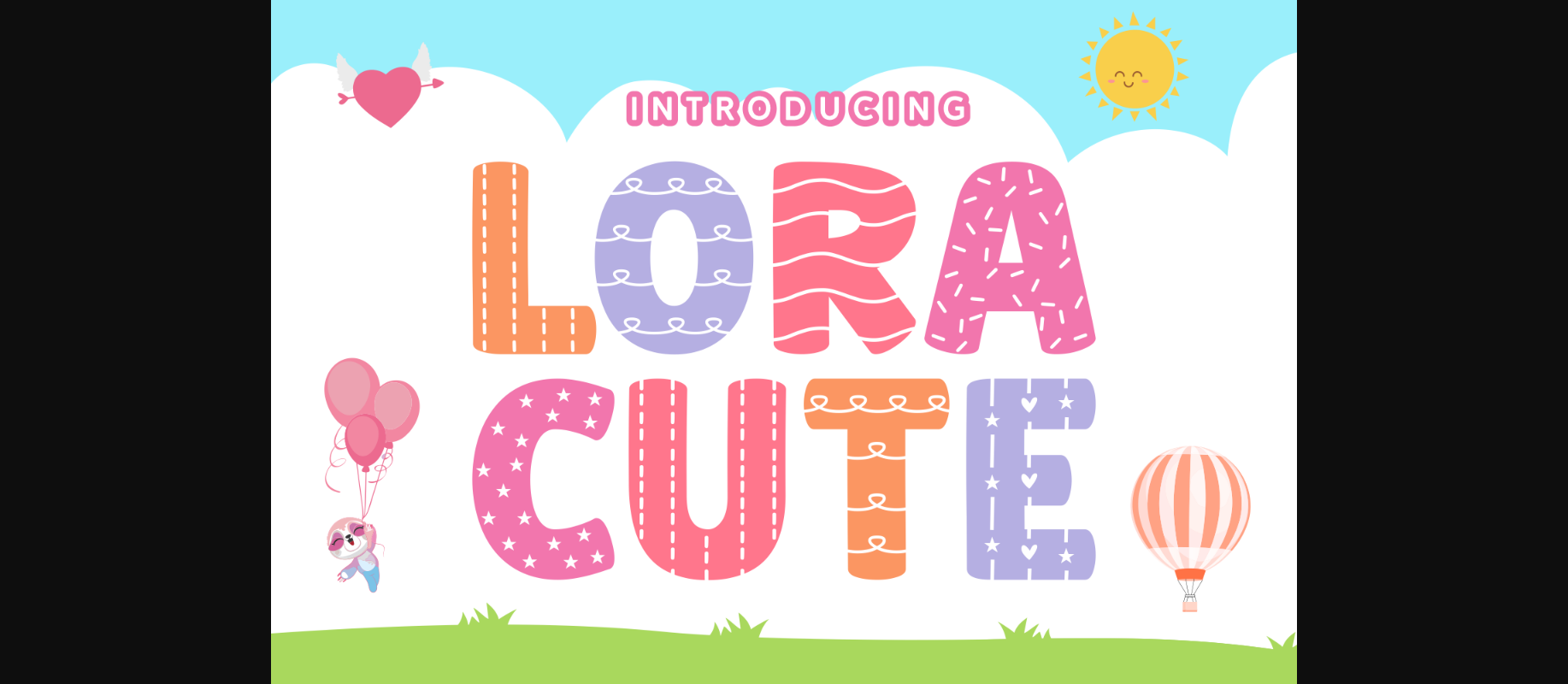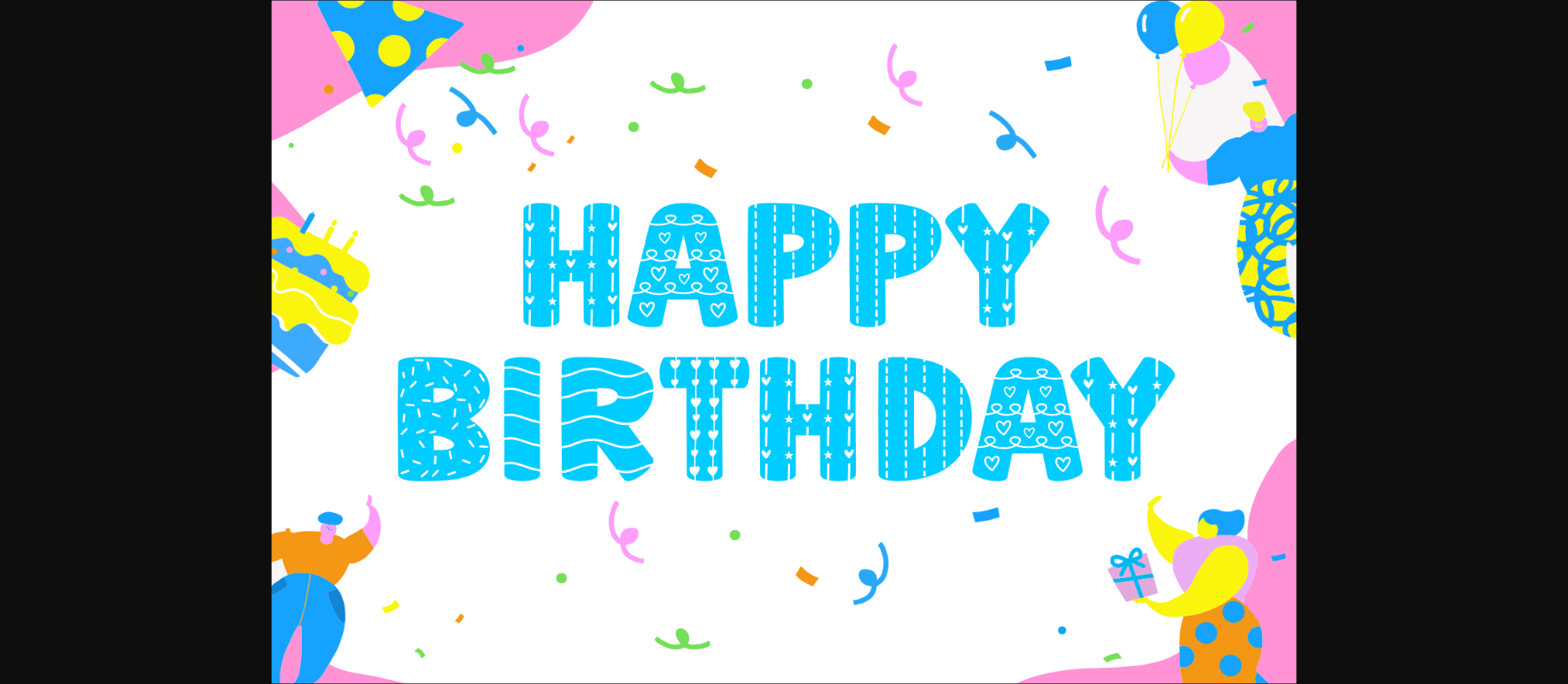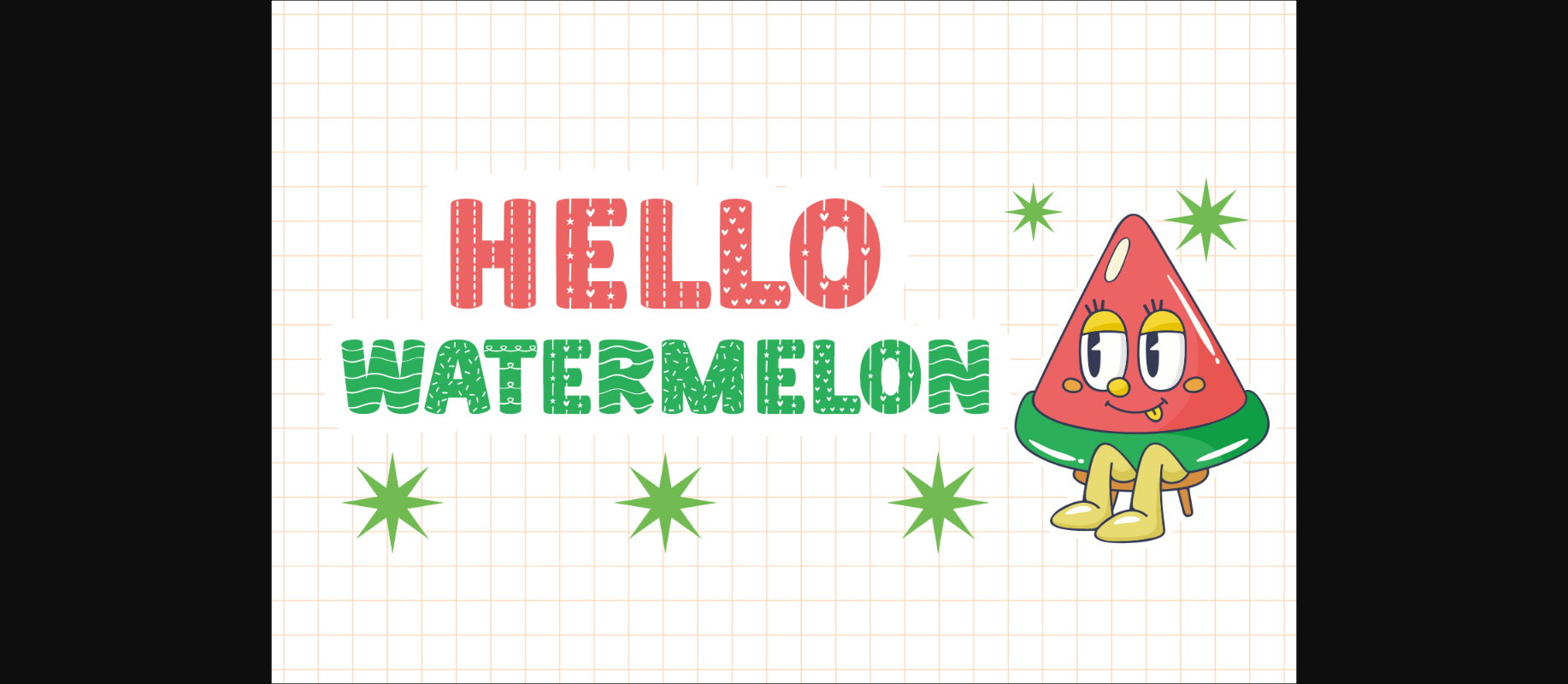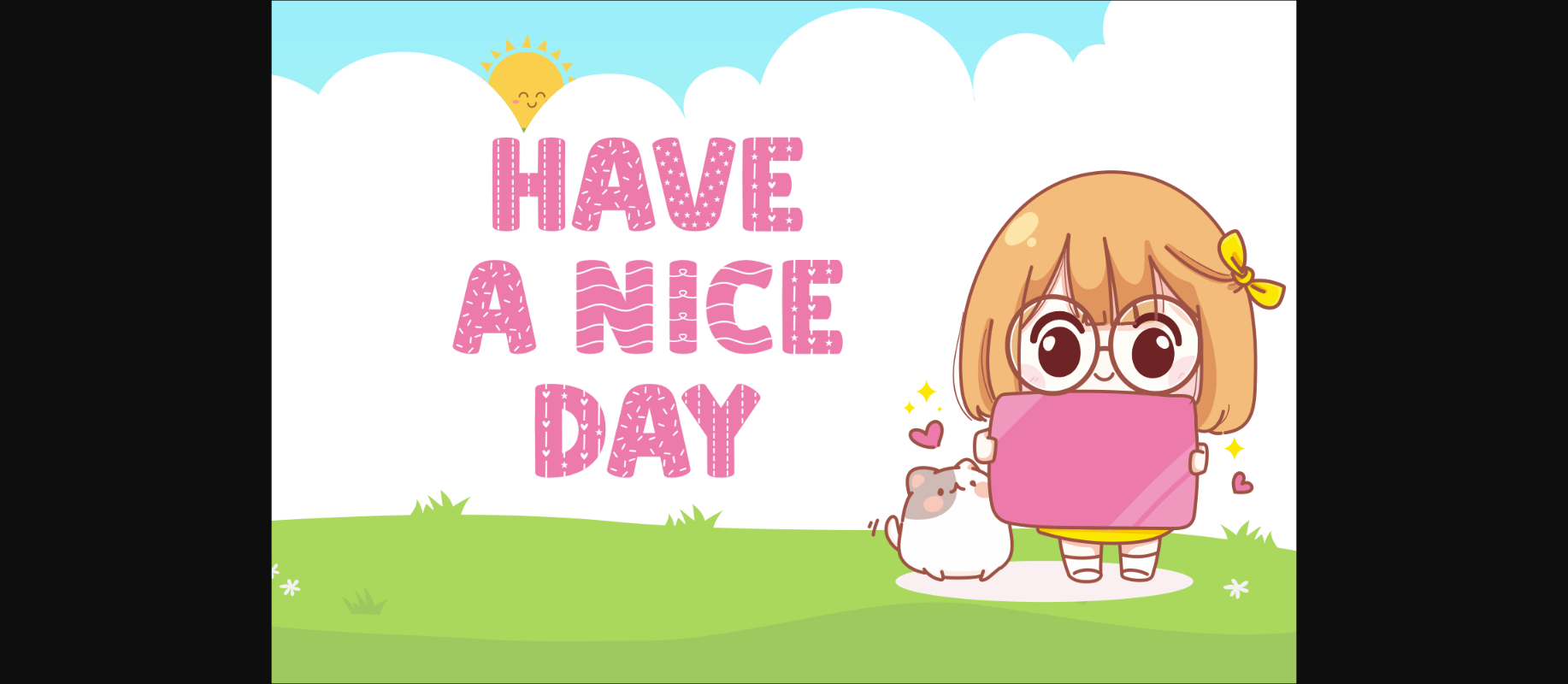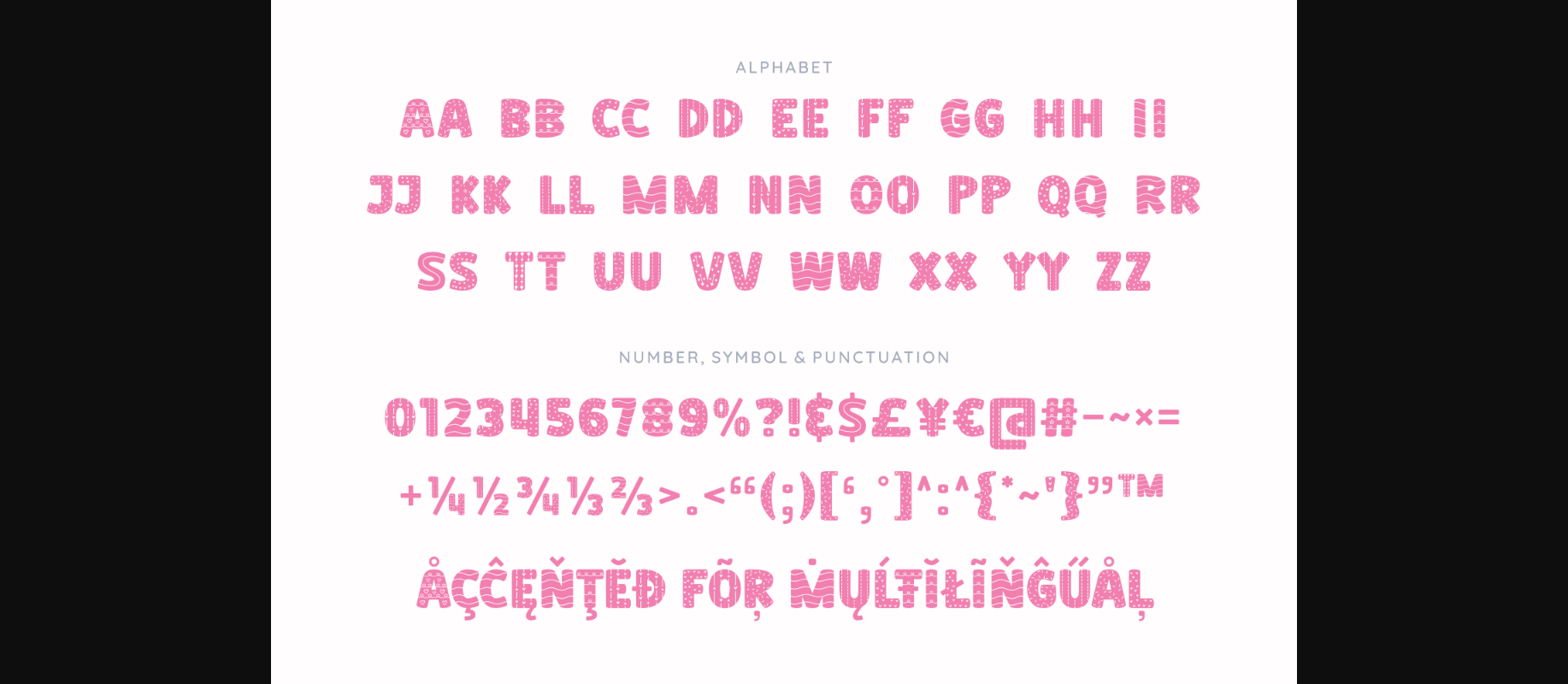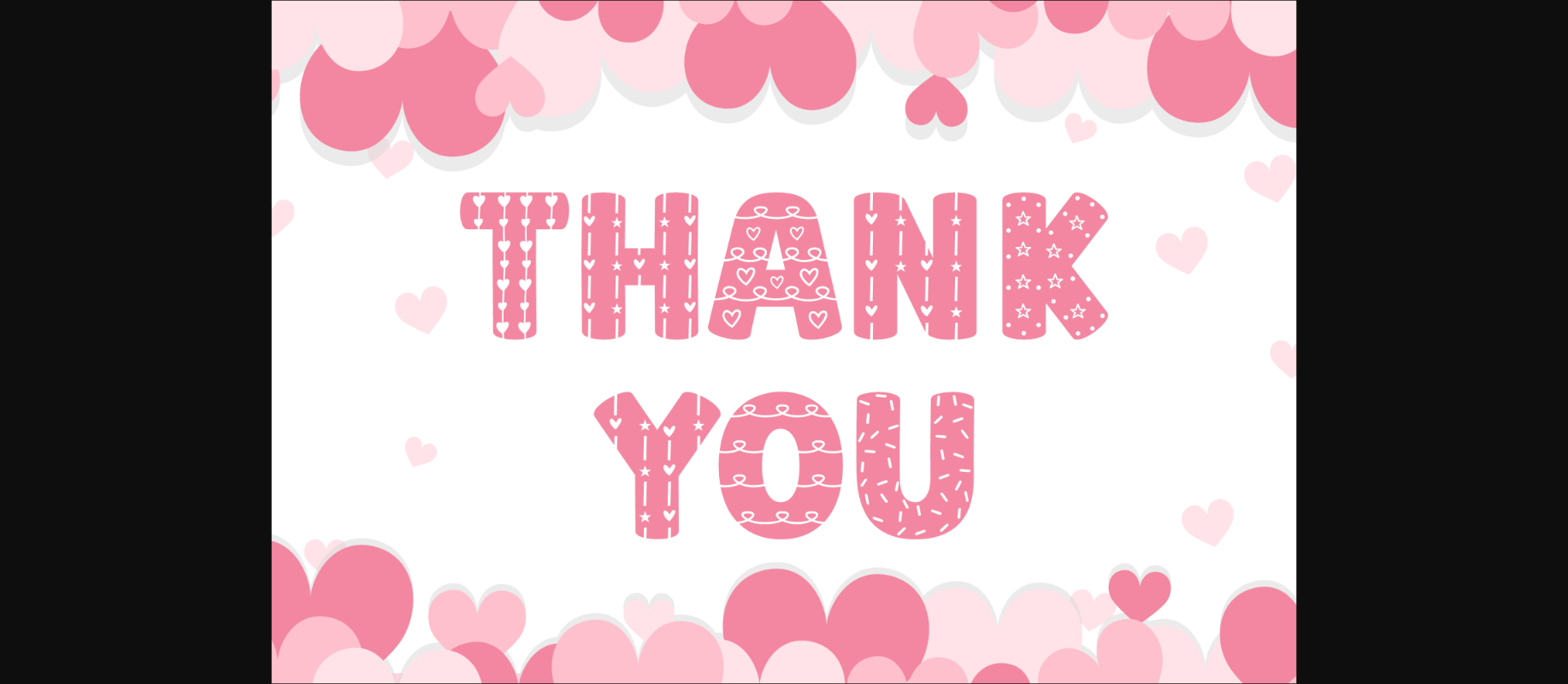
Lora Cute Font
About Lora Cute Font
Lora Cute is a whimsical decorative font capable of filling your designs with cheerfulness! Try it on children-related projects, sweets packaging, or anything that needs a youthful vibe.